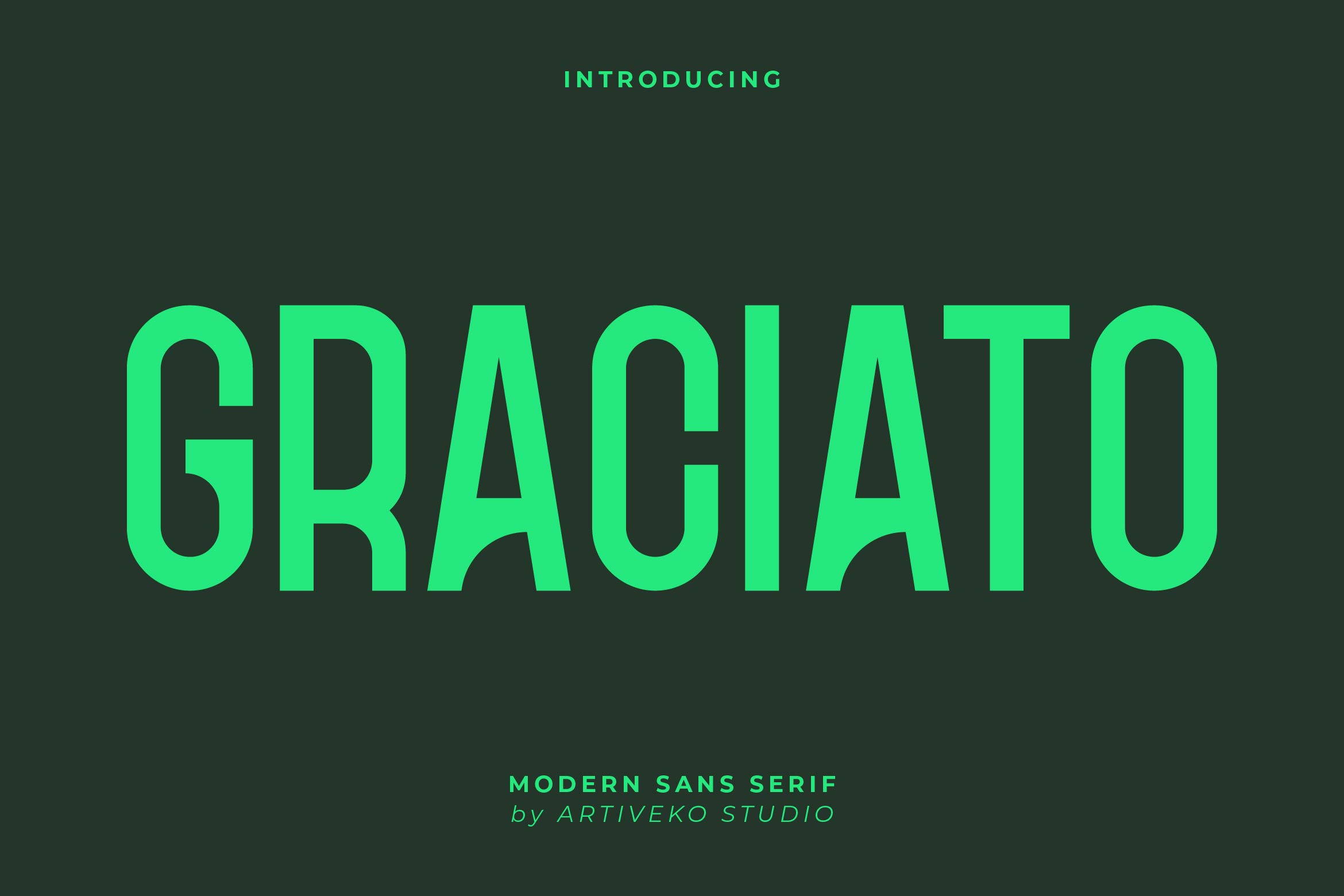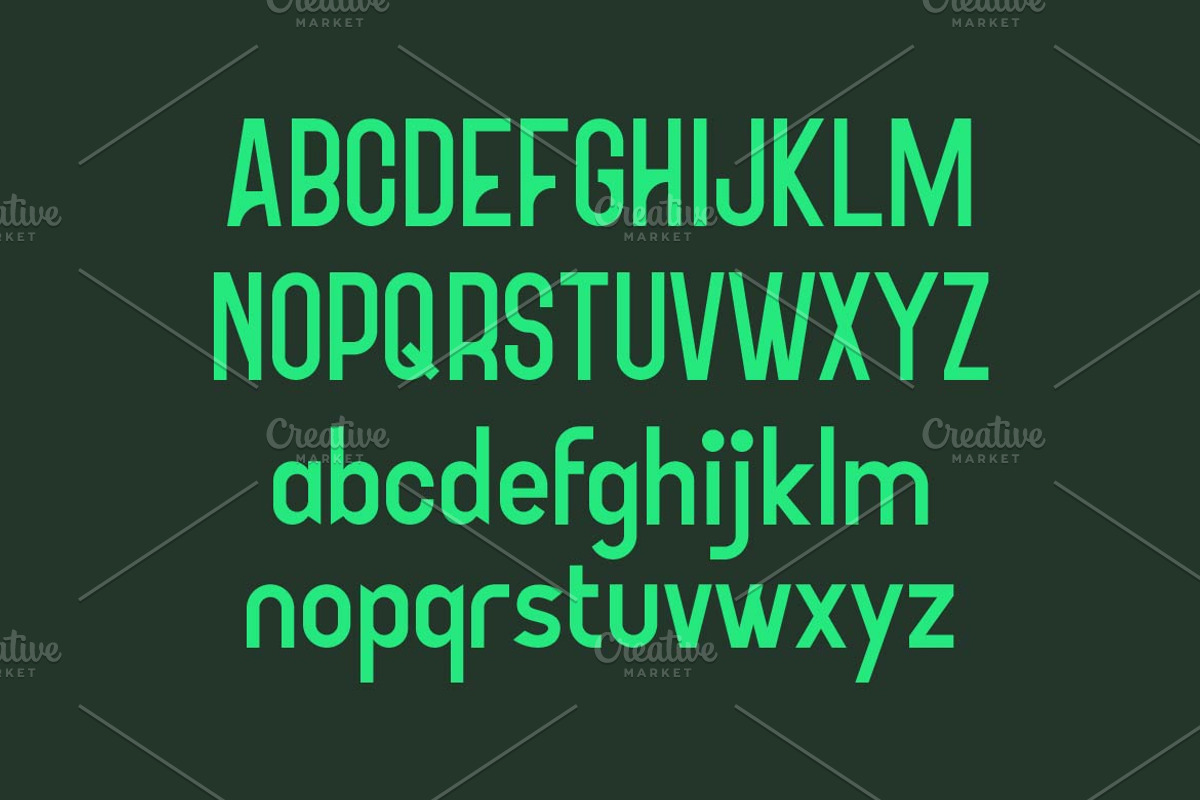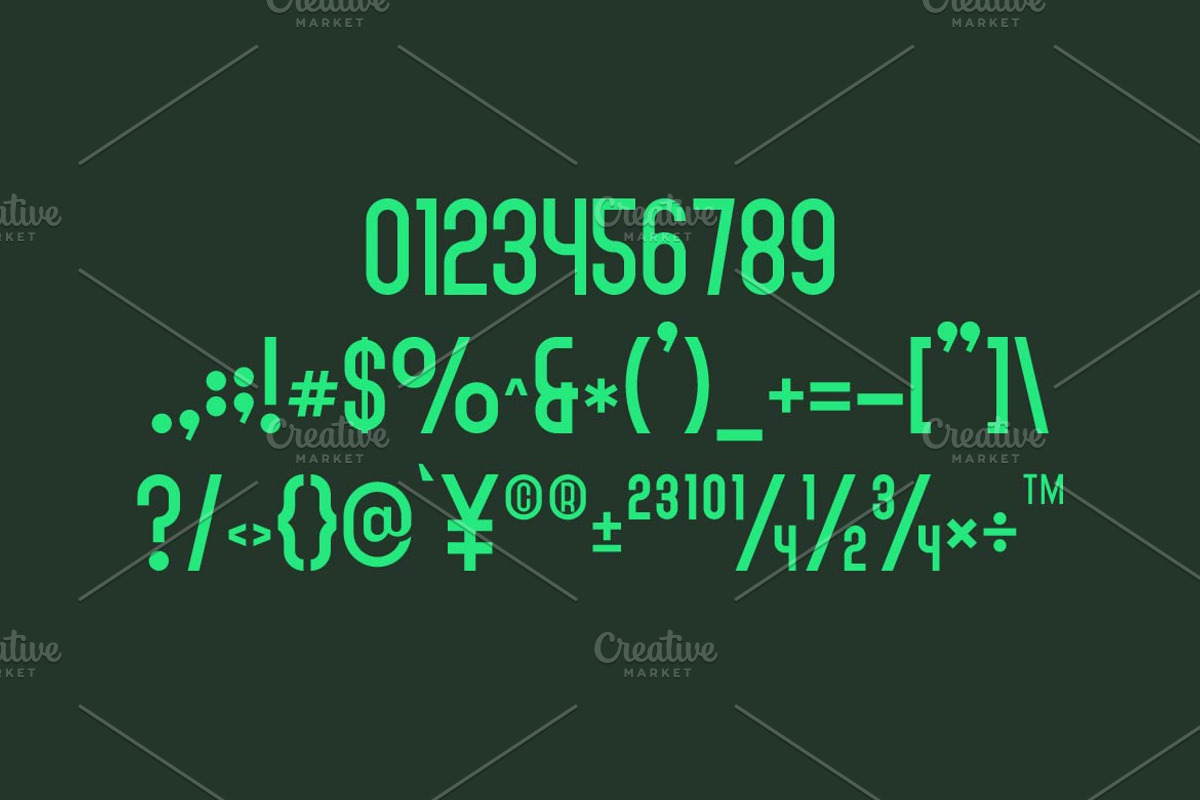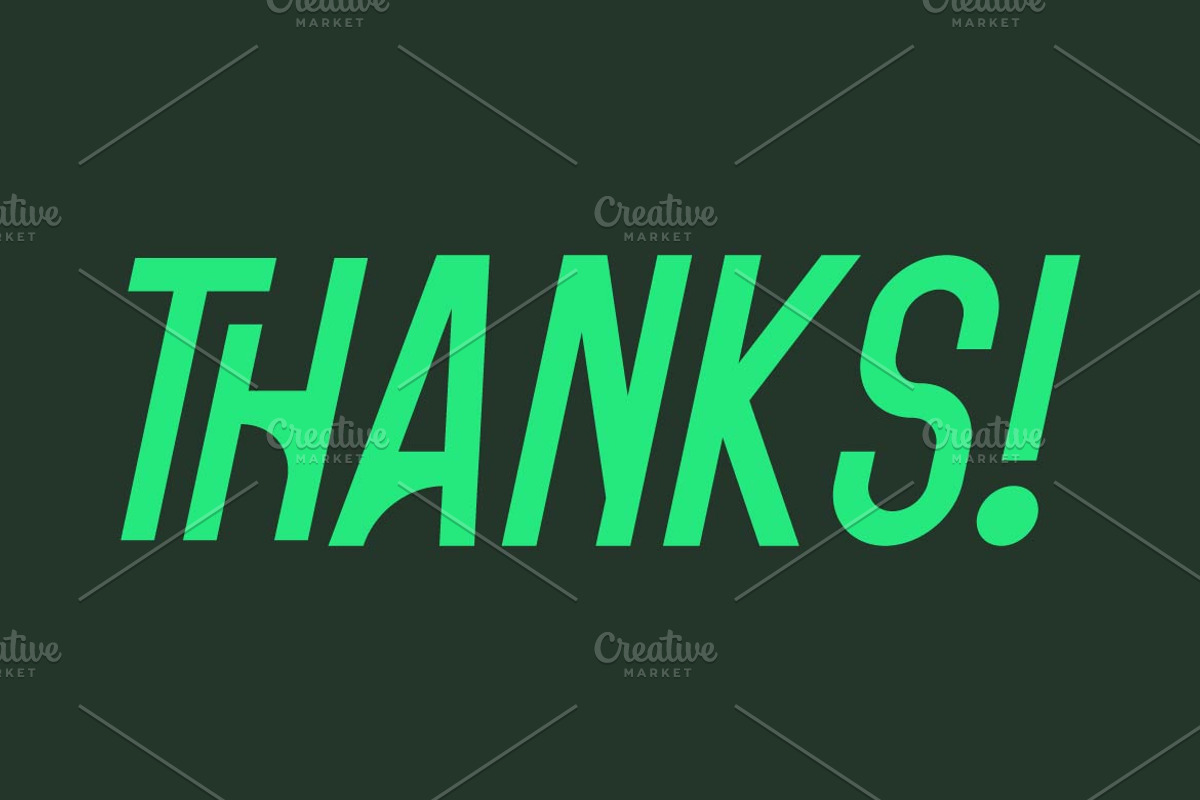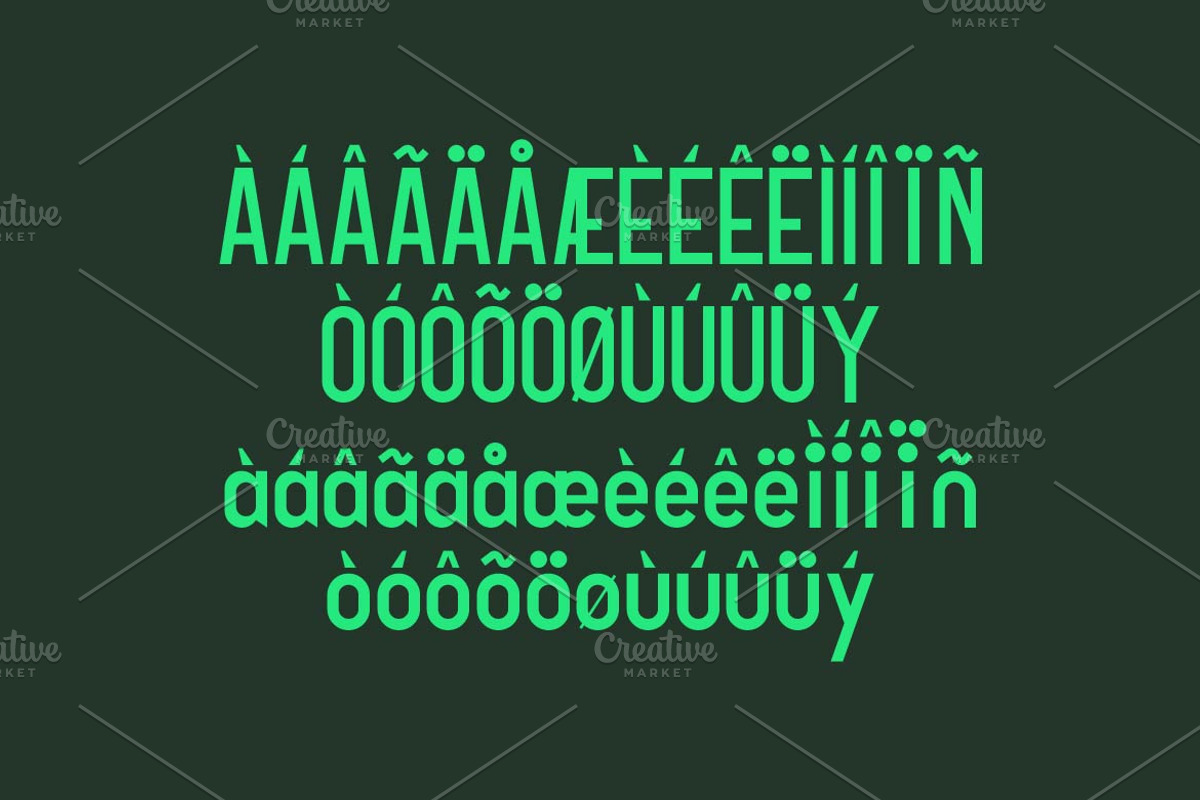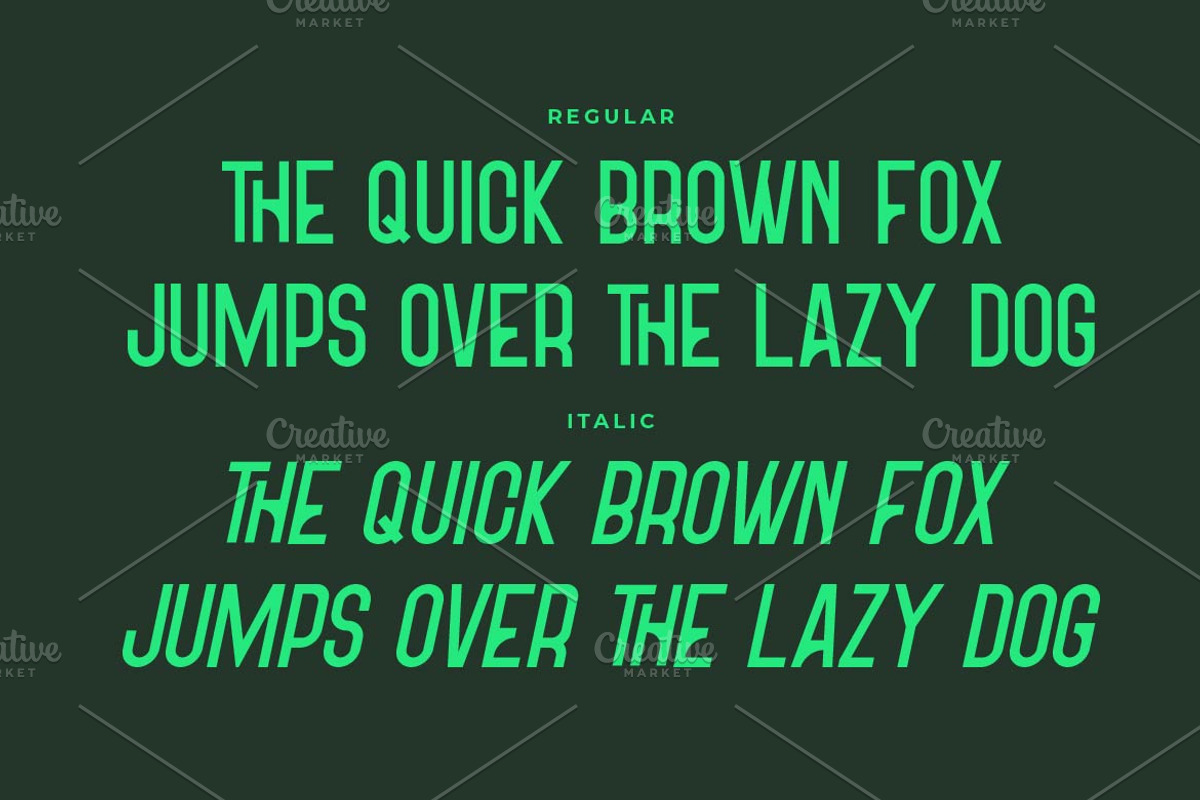
Graciato Condensed Sans Font
Graciato is a bold condensed sans serif font by Iwan Alwan, designed with strong, modern letterforms that maximize impact and readability. Perfect for headlines, branding, posters, and editorial layouts, Graciato combines sleek proportions with a contemporary edge. With multilingual support, ligatures, and alternates, this versatile typeface delivers a confident and stylish aesthetic, making it an ideal choice for projects that demand a striking yet refined look.